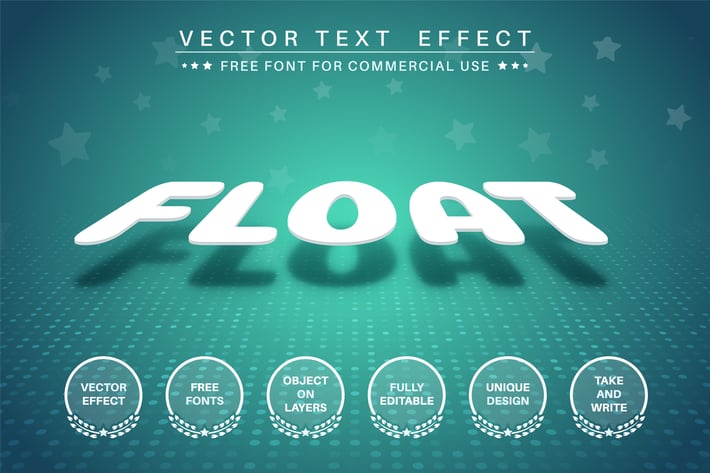
Levitation - editable text effect, font style
Hello! I'm happy to introduce my new text effect "Levitation". Just write your word and the effect will apply! Be as creative as you like to be in expressing yourself using this unique “Levitation”. Effect is perfect for any project that needs a unique handy touch whatever else your imagination leads you to!